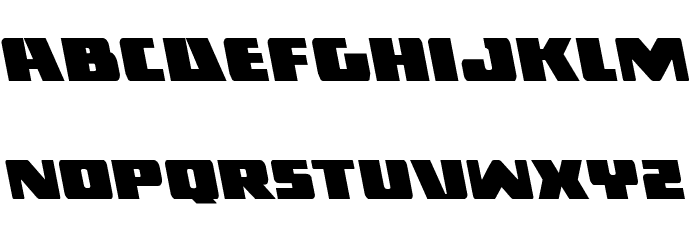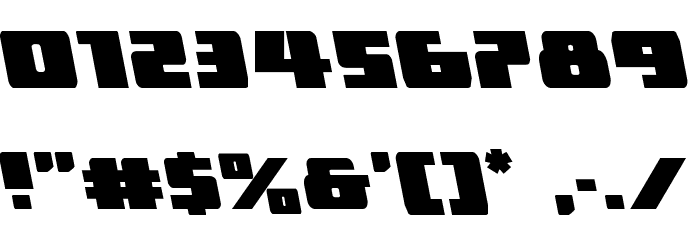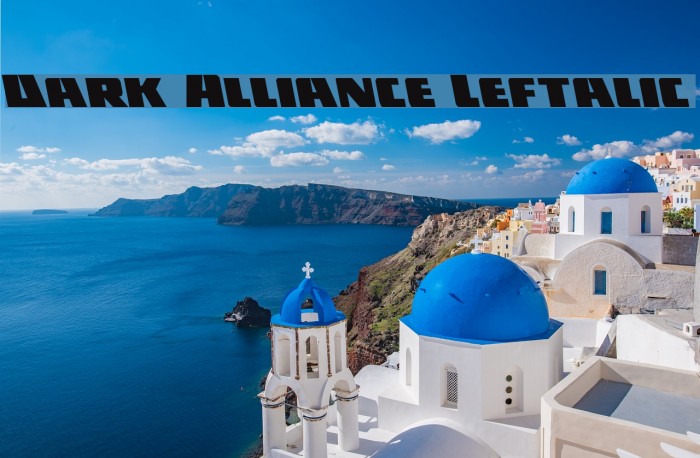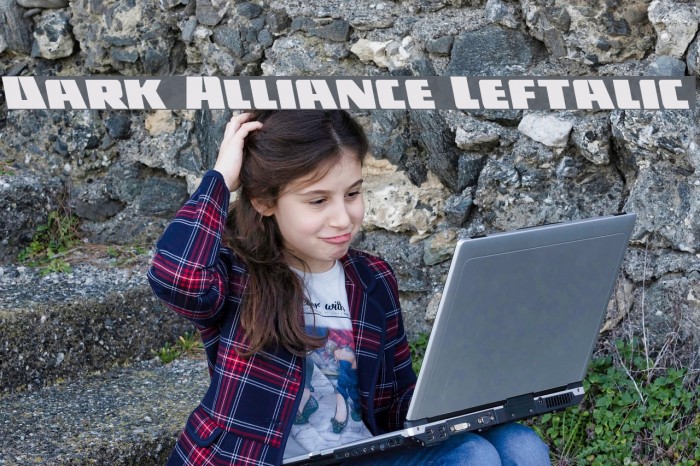
Dark Alliance Leftalic Font
This font features a bold and angular design with a futuristic flair. The characters are heavily stylized with sharp edges and a distinct slant, giving them a dynamic and aggressive appearance. The uppercase letters are particularly striking, with a geometric structure that emphasizes their boldness. The numbers and special characters maintain this cohesive style, ensuring a consistent look across all text. This font's unique design makes it ideal for projects that require a strong visual impact.
- Proposed Projects: Perfect for video game titles, movie posters, and branding for tech companies.